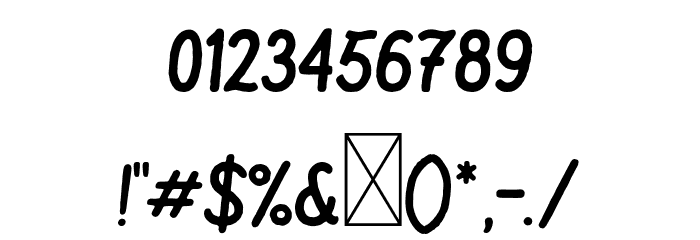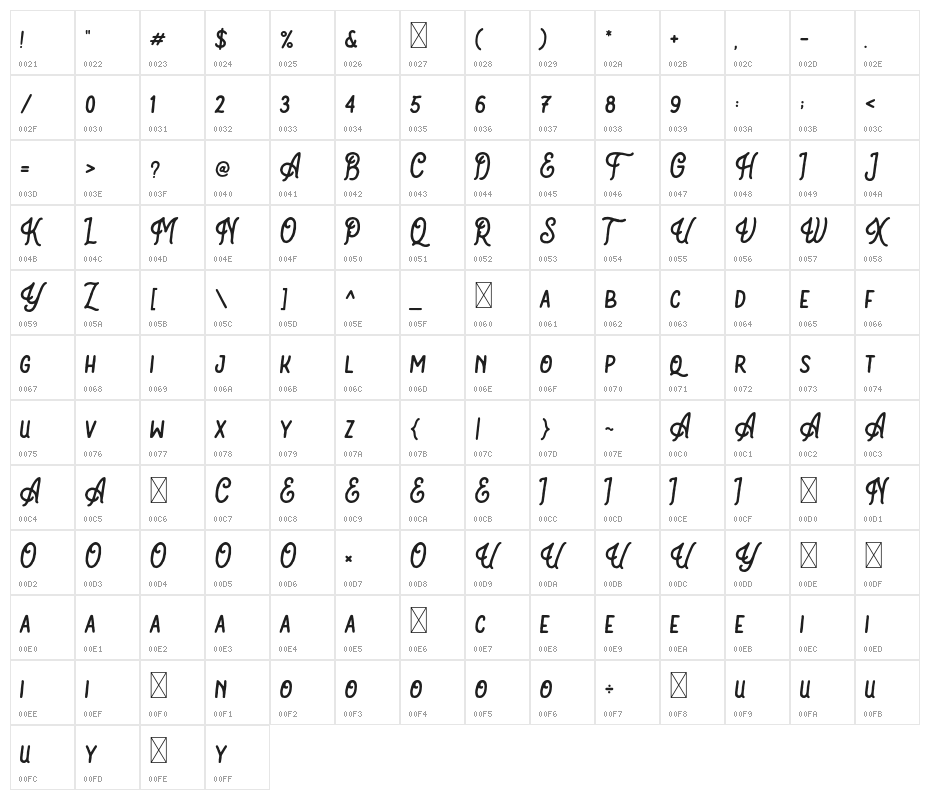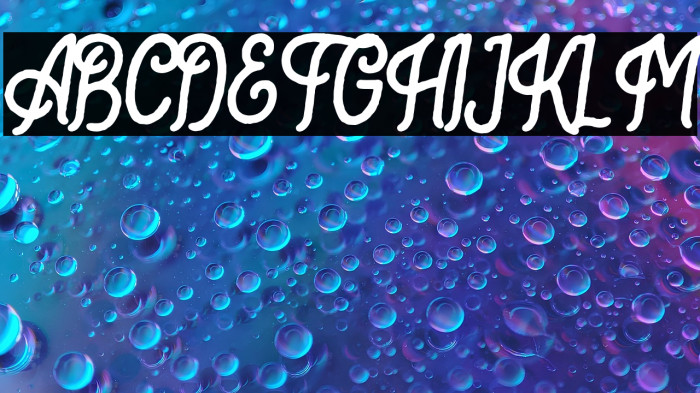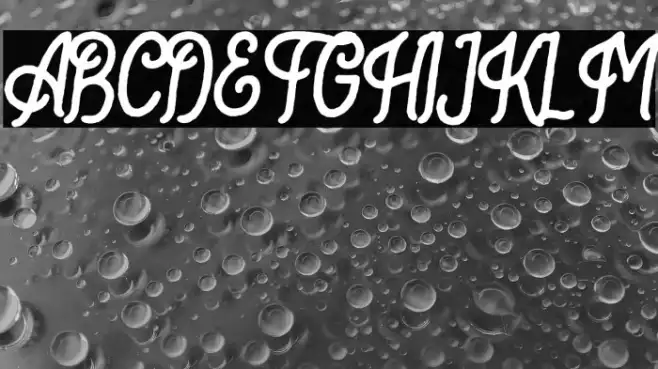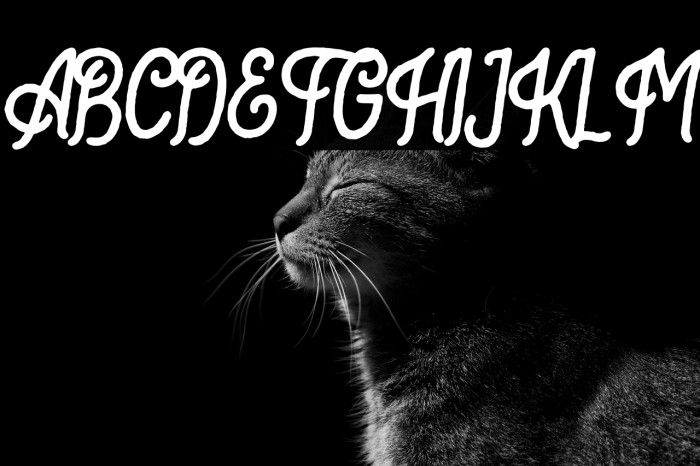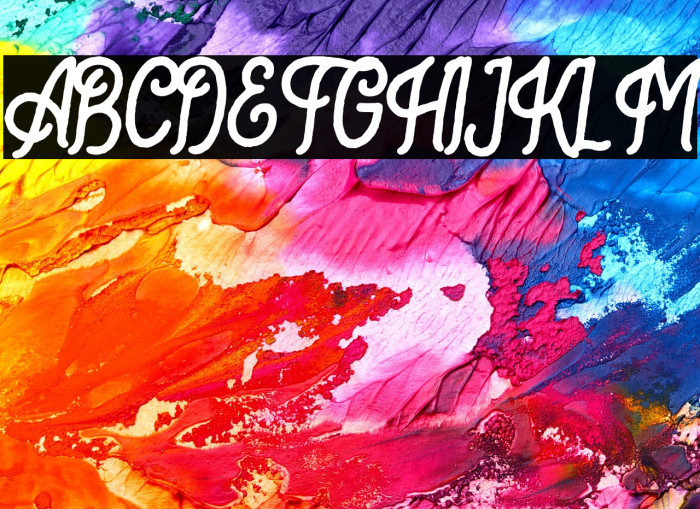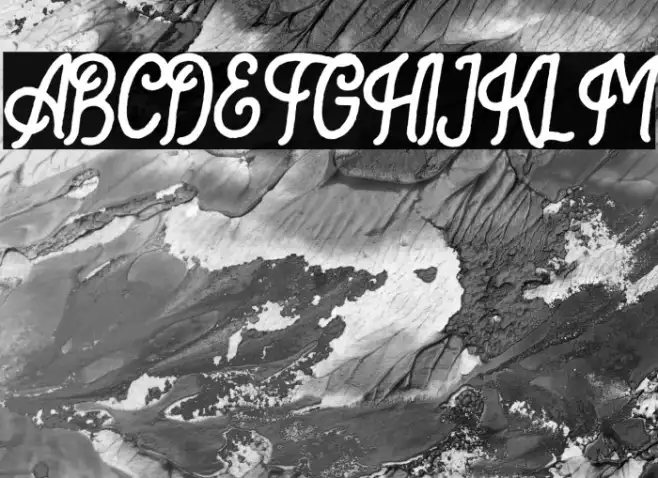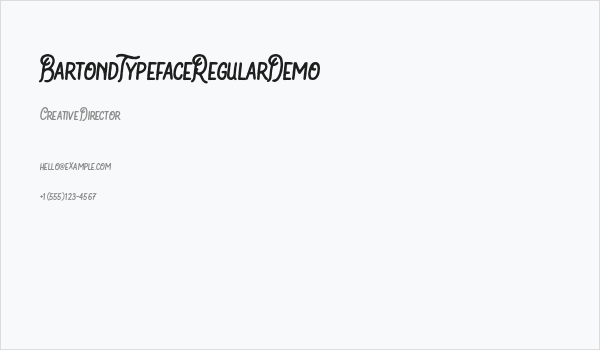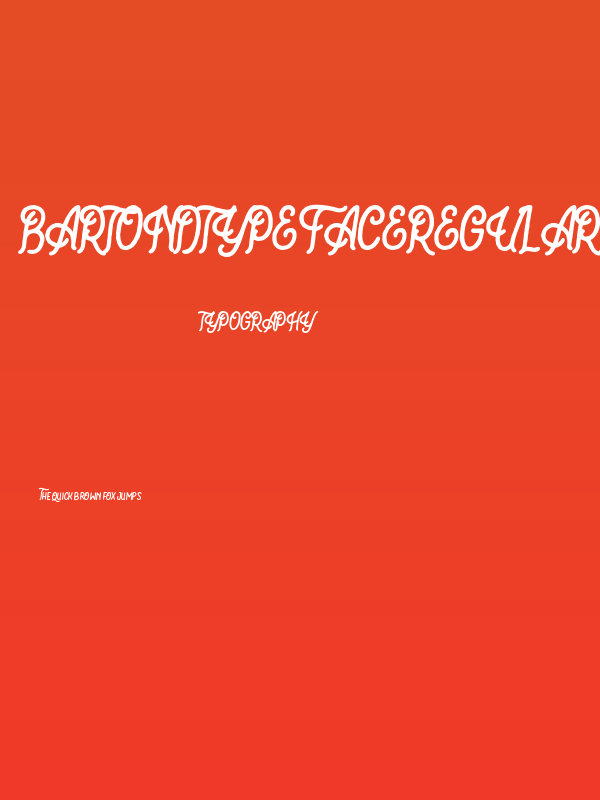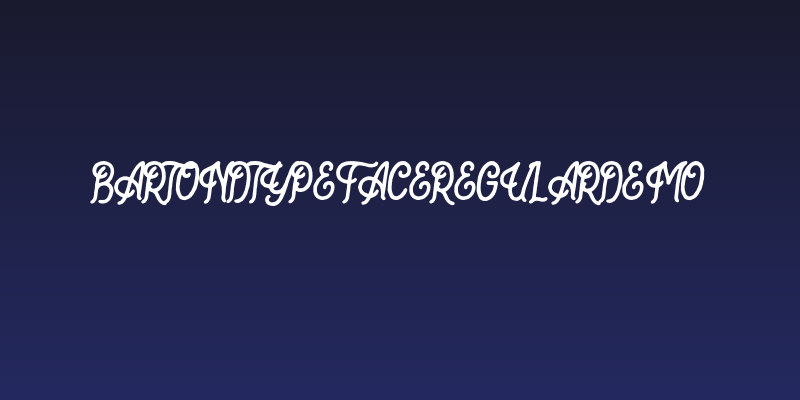
BartondTypefaceRegularDemo Font
BartondTypefaceRegularDemo Description
This font features a bold and playful script style with a handwritten feel. The uppercase letters have a flowing, cursive design, while the lowercase letters maintain a consistent, rounded appearance. The numerals are clear and easy to read, complementing the overall style. Special characters are included, adding versatility to the font. The strokes are thick and consistent, providing a strong visual impact. This font is ideal for projects that require a personal touch or a sense of whimsy.
| Proposed Projects | Ideal for greeting cards, invitations, logos, and playful branding projects. |